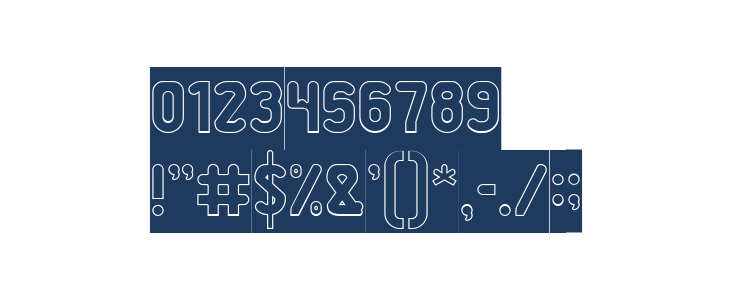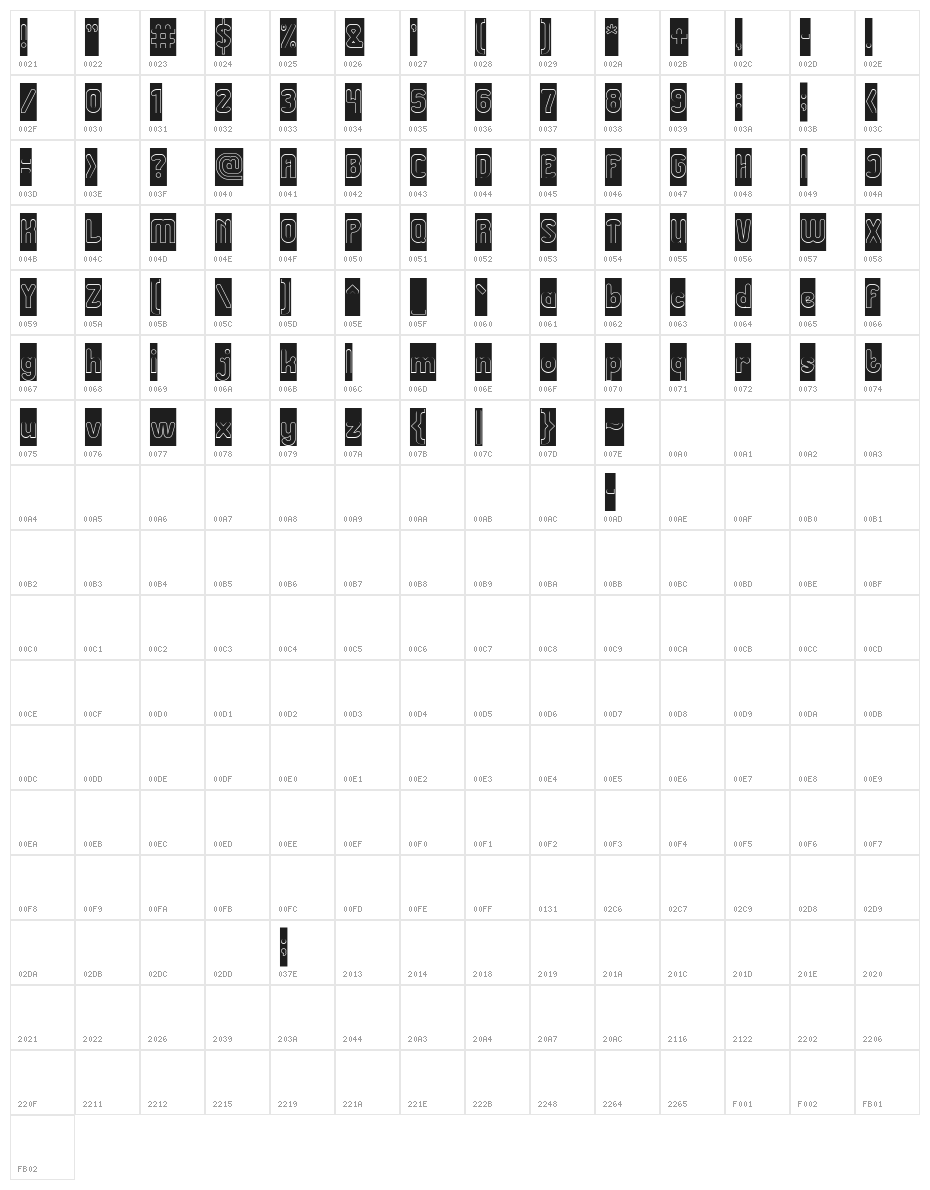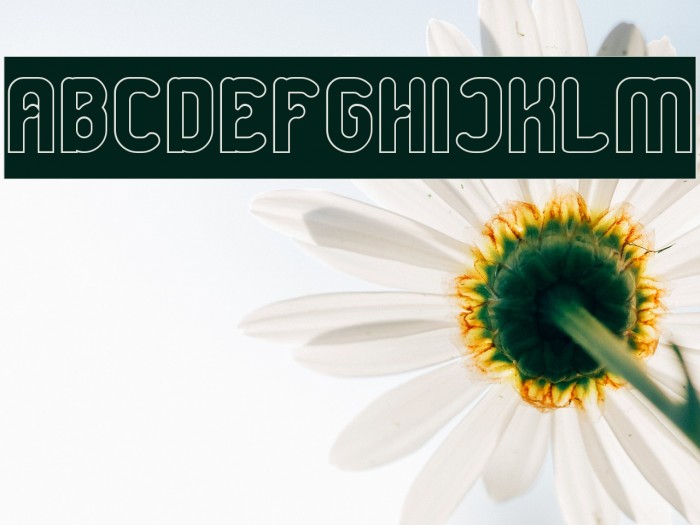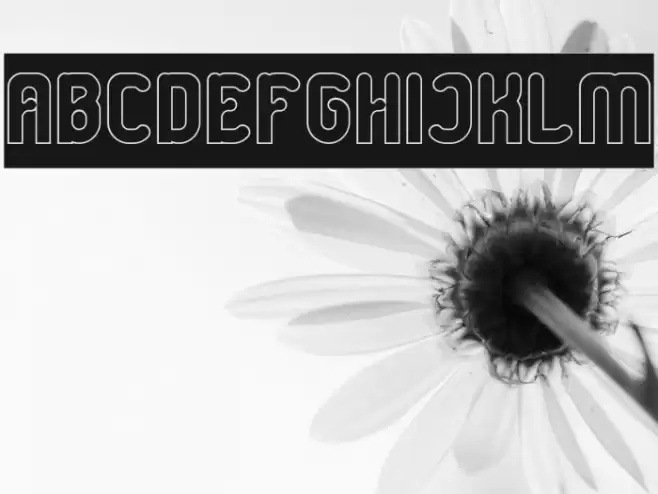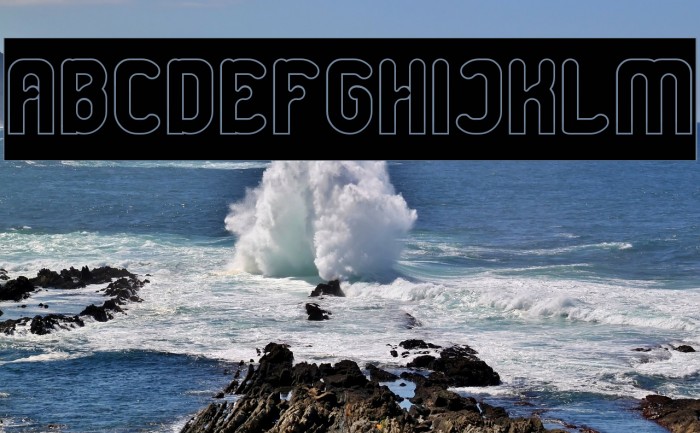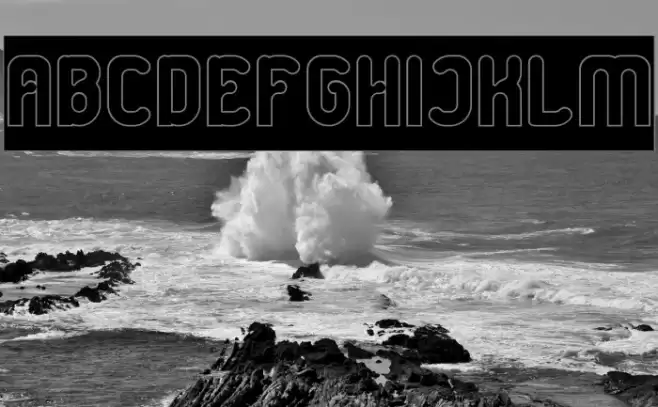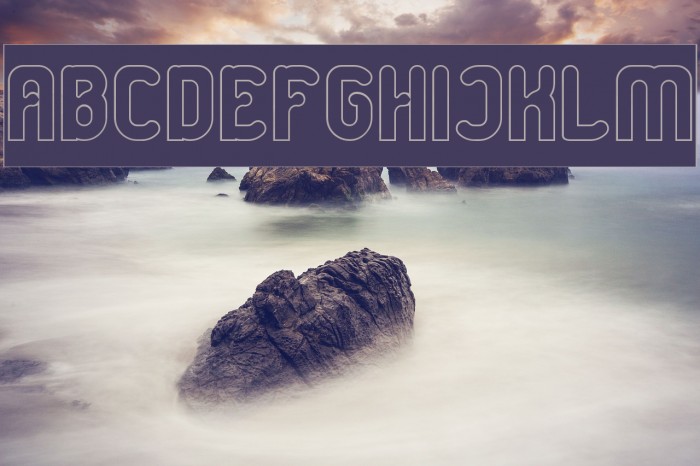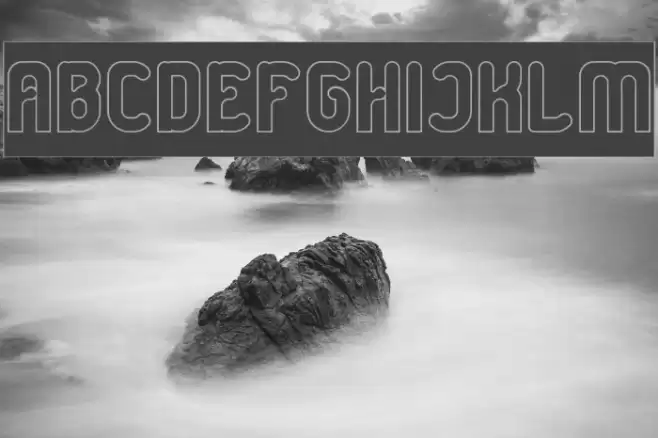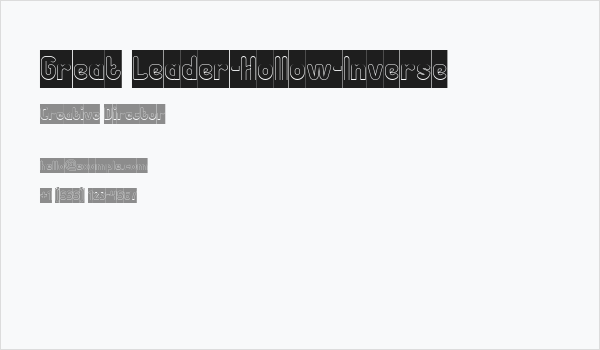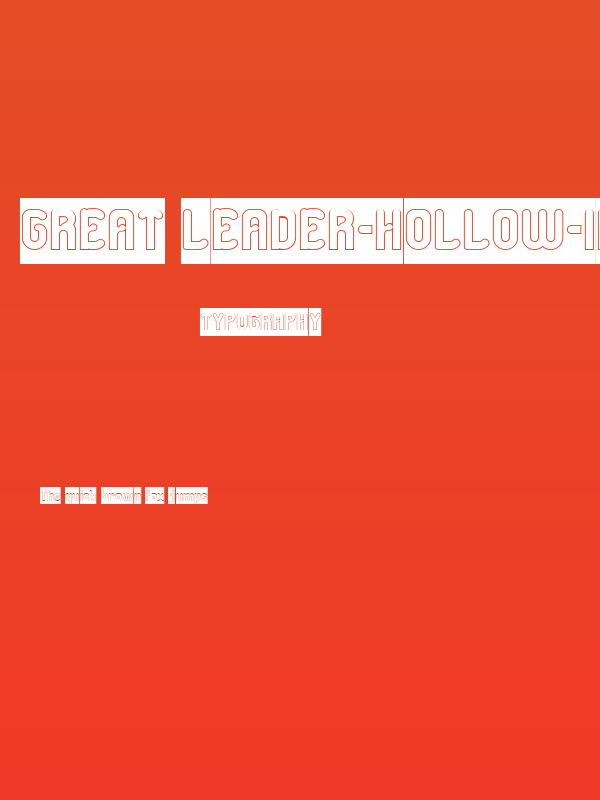
Great Leader-Hollow-Inverse Font
Great Leader-Hollow-Inverse Description
This font features a unique hollow design with a bold outline, creating a striking visual impact. The characters are uppercase and lowercase letters, numbers, and a variety of special symbols. The style is modern and geometric, with uniform line thickness that gives it a clean and structured appearance. The hollow nature of the font allows for creative use of background colors and textures to show through the letters, making it ideal for eye-catching designs. The spacing between characters is normal, ensuring readability while maintaining its decorative appeal.
| Proposed Projects | Ideal for posters, logos, headlines, and any design requiring a bold, modern aesthetic. |